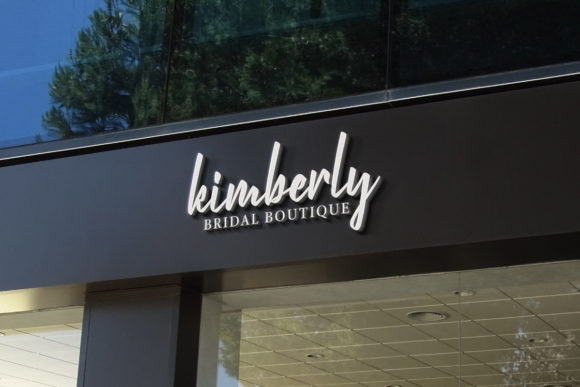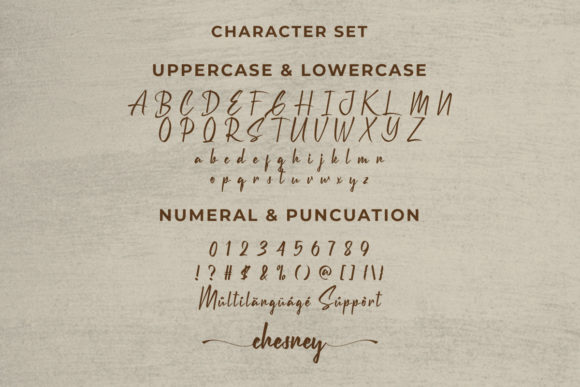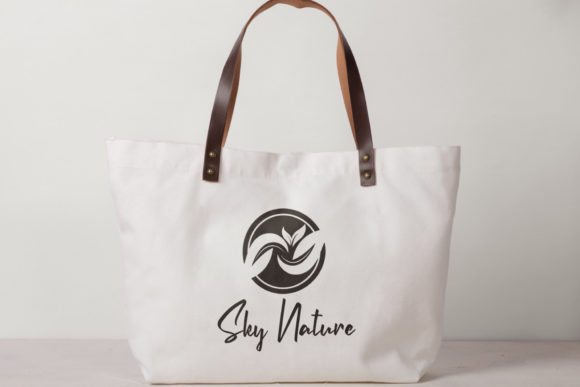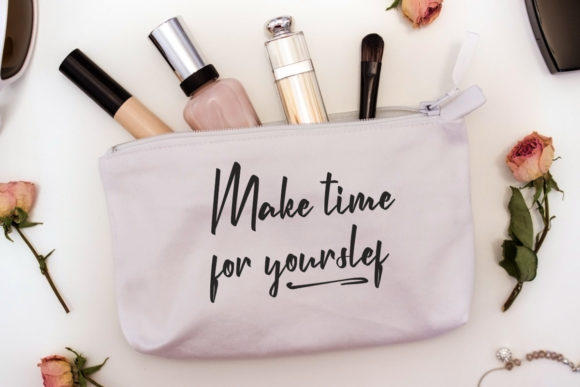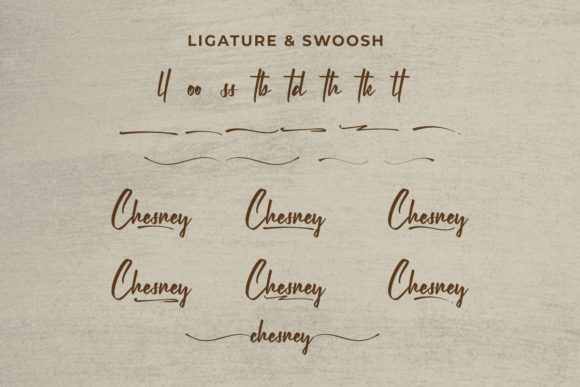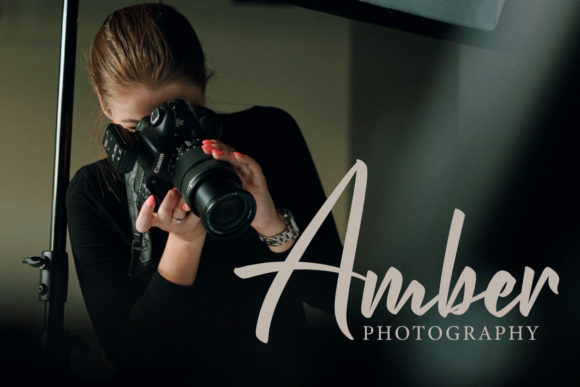
Discover the Elegance of Chesney Font: Elevate Your Crafting Ideas
Are you a designer, crafter, or DIY enthusiast looking for a beautiful and versatile script font to take your projects to the next level? Look no further than Chesney Font. This stunning script font is designed to add a touch of elegance and sophistication to a wide range of crafting ideas, from cards and invitations to branding, labels, and more.
What is Chesney Font?
Chesney Font is a beautiful and flowing script font that features elegant, cursive letters with a touch of whimsy. Its unique design makes it perfect for adding a personal touch to your crafting projects, whether you’re creating handmade cards, custom labels, or branding materials. With its flowing lines and beautiful letterforms, Chesney Font is sure to add a touch of sophistication and elegance to any project.
Features of Chesney Font
So, what makes Chesney Font so special? Here are just a few of its key features:
- Beautiful and flowing script design: Chesney Font features a stunning script design with flowing lines and elegant letterforms.
- Versatile and adaptable: This font is perfect for a wide range of crafting ideas, from cards and invitations to branding, labels, and more.
- Elegant and sophisticated: Chesney Font adds a touch of elegance and sophistication to any project, making it perfect for special occasions and events.
Uses for Chesney Font
So, what can you use Chesney Font for? The possibilities are endless! Here are just a few ideas to get you started:
- Handmade cards and invitations: Add a personal touch to your cards and invitations with Chesney Font.
- Custom labels and packaging: Use Chesney Font to create custom labels and packaging for your products or gifts.
- Branding and marketing materials: Add a touch of elegance and sophistication to your branding and marketing materials with Chesney Font.
- DIY projects and crafts: Use Chesney Font to add a personal touch to your DIY projects and crafts, such as scrapbooking, journaling, and more.
Tips for Using Chesney Font
Here are a few tips for using Chesney Font in your crafting projects:
- Experiment with different colors and textures: Try pairing Chesney Font with different colors and textures to add depth and interest to your projects.
- Use it sparingly: While Chesney Font is beautiful and elegant, it can be overwhelming if used too much. Try using it sparingly to add a touch of sophistication to your projects.
- Pair it with other fonts: Try pairing Chesney Font with other fonts to create a unique and interesting look.
In conclusion, Chesney Font is a beautiful and versatile script font that is perfect for designers, crafters, and DIY enthusiasts. Its elegant and flowing design makes it perfect for adding a touch of sophistication and elegance to a wide range of crafting ideas, from cards and invitations to branding, labels, and more. With its ease of use and versatility, Chesney Font is sure to become a favorite in your crafting arsenal.
Get Creative with Chesney Font